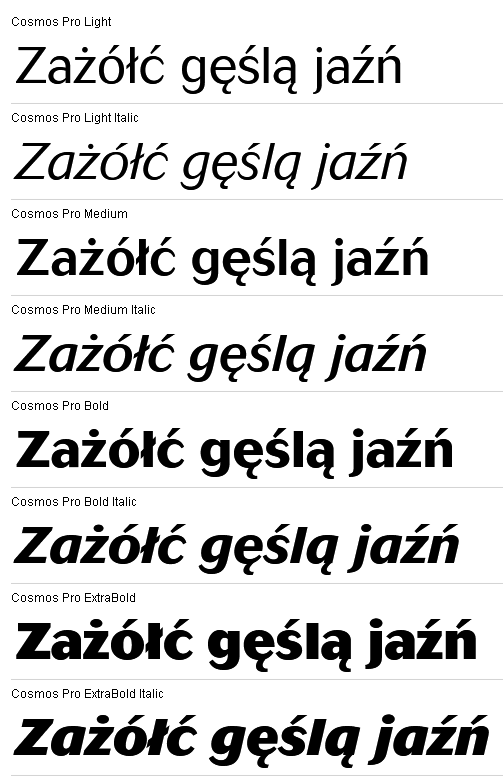
Cosmos
Cosmos®
Designed by Gustav Jaeger in 1982, Cosmos is an interesting sans serif with terminals that seem to fade rather than come to a distinct end. This characteristic, however, does not distract the reader. Jaeger said of type design, “To be sure we must appreciate the aesthetic quality of the individual character, the correct type style suited to the subject, but the ‘text image’ should not push itself between the message and the reader. Type must serve.” Cosmos is useful for short passages, signage and display work.